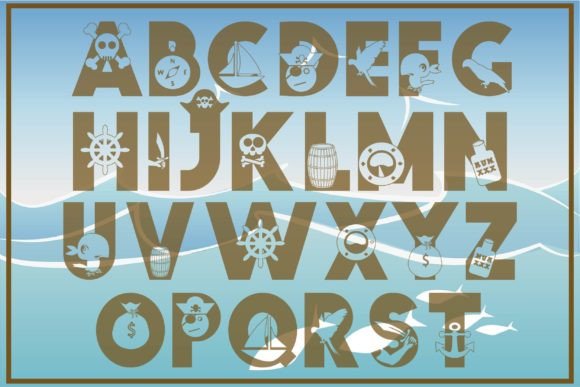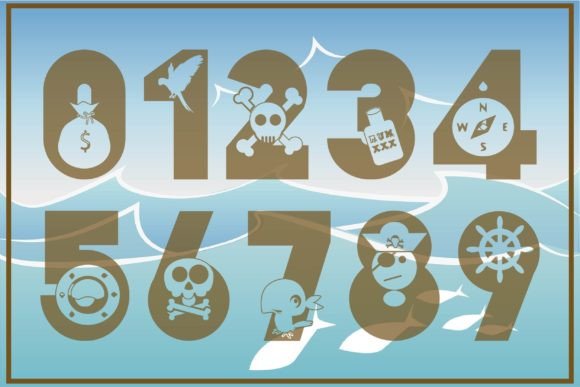
Introduction to Little Pirate Font
As designers, we’ve all been there – staring at a blank canvas, trying to bring a concept to life. It’s the moment of pure creativity, where the right font can make all the difference. For those looking to add a touch of swashbuckling flair to their projects, the Little Pirate Font is an excellent choice.
This cool and original-looking decorative font is perfect for designers seeking to add a unique twist to their logotypes, headlines, and brand identities. With its versatility, it’s no wonder why the Little Pirate Font has become a valuable design resource for creatives across various industries.
Key Features of Little Pirate Font
- Unique and playful design, perfect for creative projects and children’s media.
Honest Review: Little Pirate Font
I recently stumbled upon the Little Pirate Font while searching for a unique design resource for a creative project. As a designer, I’m always on the lookout for high-quality fonts that can elevate my designs.
Here’s what I think:
- ✨ The font has a playful, whimsical feel that’s perfect for children’s books, party invitations, or any other project that requires a sense of adventure.
- ⚠️ The font is not suitable for formal or professional projects, as it’s a bit too playful for those types of designs.
Overall, I’m impressed with the Little Pirate Font. It’s a great addition to any designer’s toolkit, and it’s perfect for projects that require a touch of whimsy. Just be aware of its limitations, and you’ll be sailing the high seas of design in no time!
The Little Pirate Font is perfect for:
- Children’s book covers and illustrations.
- Party invitations and decorations.
- Playful logos and branding materials.
Q: Is the Little Pirate Font suitable for high-quality print projects?
Yes, the Little Pirate Font is designed to be high-quality and suitable for print projects. It’s available in high-resolution formats, making it perfect for business cards, brochures, and other print materials. The font’s clear and legible design ensures that your text will look great in print, even at small font sizes.